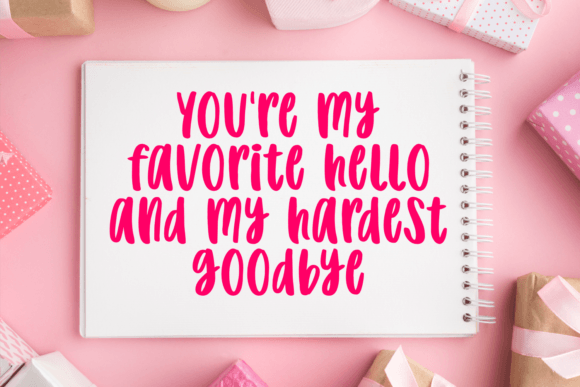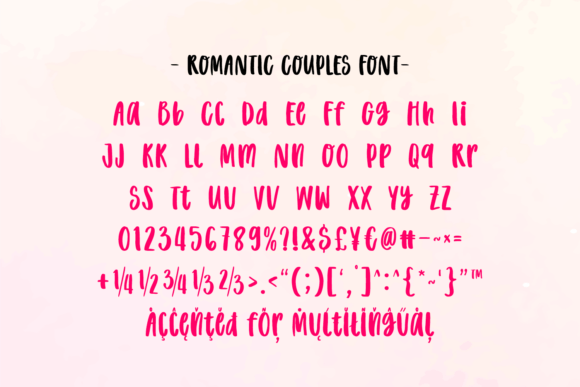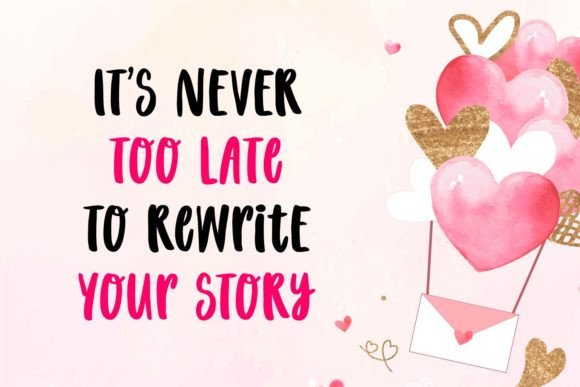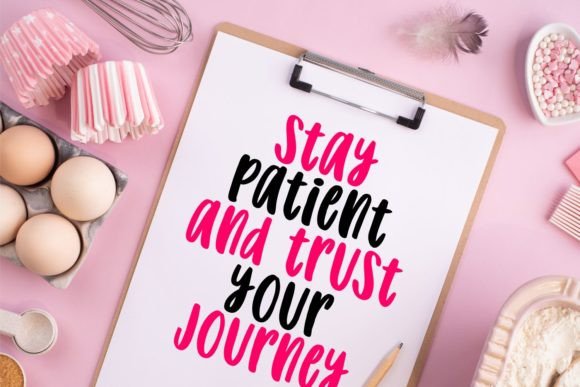
Introduction to Romantic Couples Font Font
Fonts play a crucial role in design, and the Romantic Couples Font font is a typeface that brings both character and versatility to any project. Whether you’re working on a branding project, a website, or a print design, the Romantic Couples Font font offers a unique style that can elevate your work.
| 📌 Font Name | Romantic Couples Font |
| 👤 Author | Situjuh |
Romantic Couples is a romantic and stylish script font that is perfect for adding a touch of elegance and charm to any project.
With its flowing lines and graceful curves, it creates an atmosphere of romance and beauty Its handwritten look will make any design stand out and add a touch of class.
Key Features of Romantic Couples Font Font
Why Choose Romantic Couples Font Font?
The Romantic Couples Font font is more than just a typeface – it’s a design tool that helps you communicate your message with style and clarity. Its unique character set and versatile design make it suitable for a wide range of applications, from elegant invitations to bold headlines.
With its carefully crafted letterforms and balanced proportions, the Romantic Couples Font font ensures readability and visual appeal across all mediums.
What makes Romantic Couples Font font special?
The Romantic Couples Font font stands out with its unique design, exceptional readability, and versatility across various design applications.